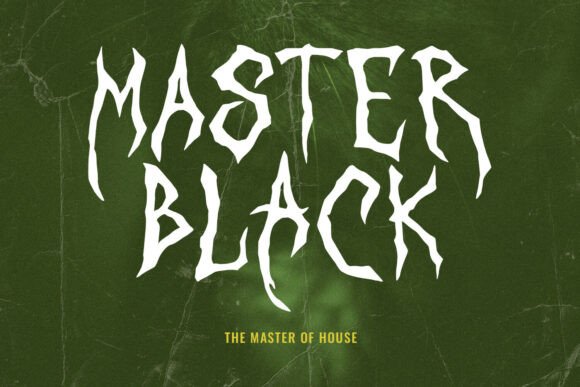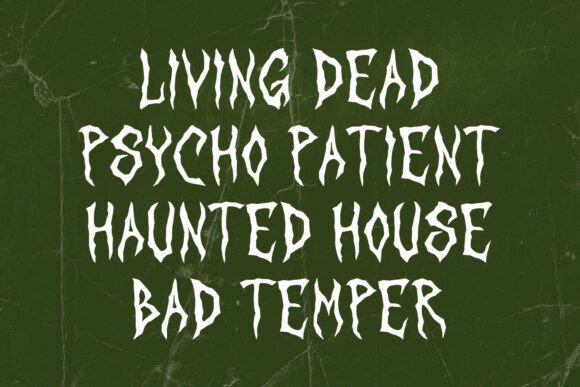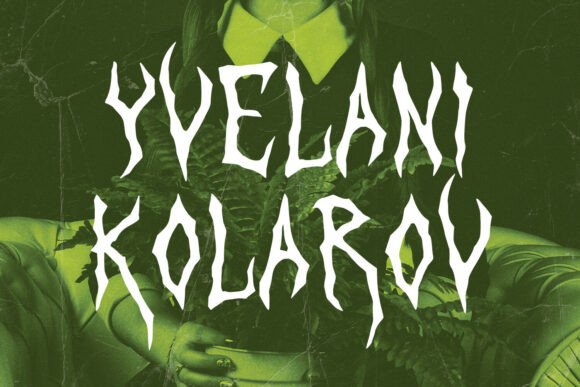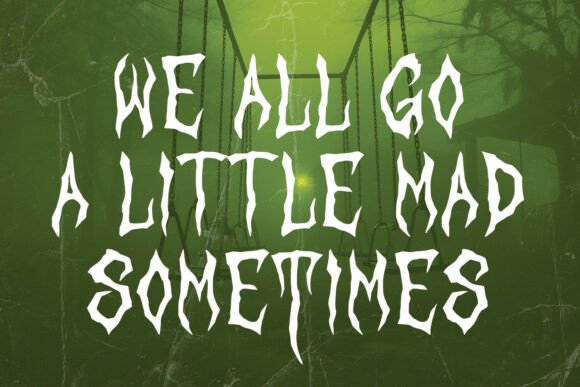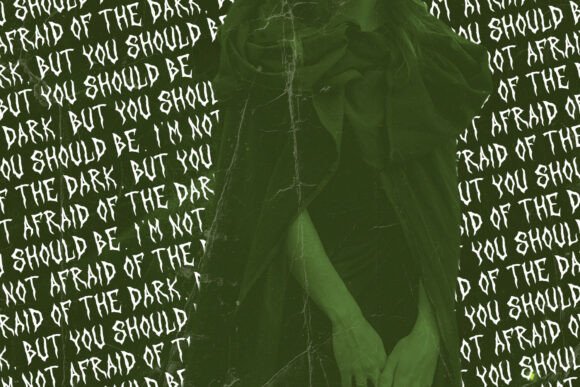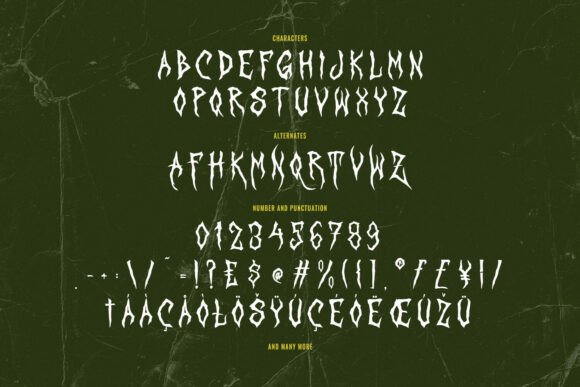
Unleash the Darkness with Frakhaz Font: The Ultimate Display Font for Edgy Projects
In the world of design, fonts play a crucial role in conveying the tone and personality of a brand or project. For those who dare to push the boundaries and unleash their creativity, Frakhaz Font is the perfect choice. This aggressive and razor-sharp display font is designed to make a statement, inspired by the raw energy of underground Heavy Metal culture and the chilling aesthetics of classic horror movies.
The Inspiration Behind Frakhaz
Frakhaz Font draws its inspiration from the unbridled energy of Heavy Metal music and the eerie, suspenseful atmosphere of classic horror movies. The font’s creator aimed to capture the essence of these two worlds, merging them into a unique and captivating display font. The result is a font that exudes a sense of rebellion, chaos, and unapologetic boldness.
Design Features of Frakhaz Font
Frakhaz Font boasts a distinctive design, characterized by jagged, thorn-like strokes that give every word a lethal edge. Its hand-drawn, visceral feel ensures that your branding stands out with a brutal, authentic personality. The font’s aggressive appearance is balanced by a surprising level of legibility, making it suitable for a wide range of applications, from death metal band logos to spine-tingling horror movie posters.
Perfect for Edgy Projects
Whether you’re a designer, craftsperson, or simply someone who appreciates bold and daring aesthetics, Frakhaz Font is the perfect choice for your next project. Here are some ideas to get you started:
- Death Metal Band Logos: Frakhaz Font is tailor-made for death metal band logos, offering a font that screams energy, aggression, and rebellion.
- Horror Movie Posters: Create spine-tingling horror movie posters that will leave audiences shivering with fear.
- Edgy Streetwear Apparel: Add a touch of boldness to your streetwear designs with Frakhaz Font, perfect for those who dare to be different.
- Graphic Novels and Comics: Frakhaz Font can add a gritty, intense feel to your graphic novels and comics, drawing readers into the world of your story.
Key Benefits of Using Frakhaz Font
So why choose Frakhaz Font for your next project? Here are some key benefits:
- Unique and Memorable: Frakhaz Font offers a one-of-a-kind design that will make your project stand out from the crowd.
- Highly Legible: Despite its aggressive appearance, Frakhaz Font remains surprisingly legible, ensuring your message gets across.
- Versatile: Frakhaz Font can be used for a wide range of applications, from logos and posters to apparel and graphic novels.
- Authentic and Raw: Frakhaz Font embodies the raw energy of Heavy Metal culture and classic horror movies, lending an authentic feel to your project.
If you’re looking for a font that will unleash the darkness and boldness of your project, look no further than Frakhaz Font. With its aggressive, razor-sharp design and surprising legibility, Frakhaz Font is the perfect choice for designers and craftspersons who dare to push the boundaries. So why settle for ordinary fonts when you can make a statement with Frakhaz Font?
Get Ready to Unleash the Darkness